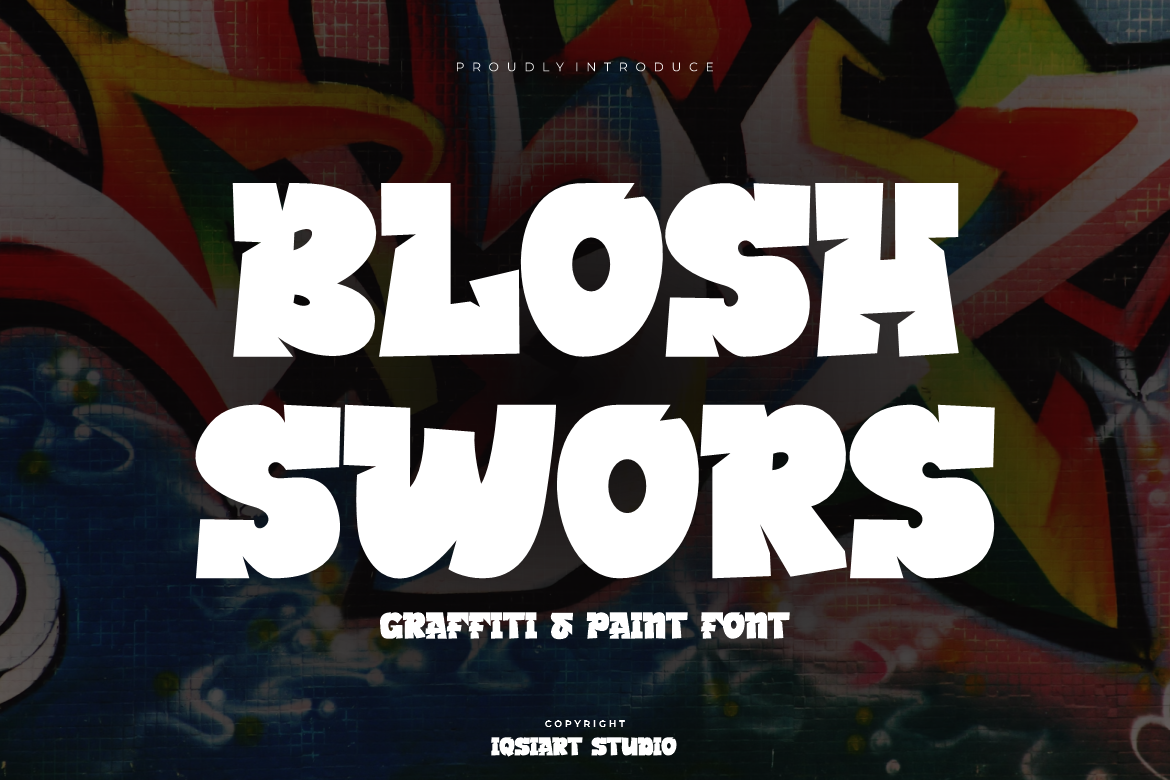
Blosh Swors - Graffiti Font
Blosh Swors Font is a best and authentic display font. This font can be used for your various needs. We provide various themes and font styles. visit our profile to get a wide variety of themes and different font styles you need.